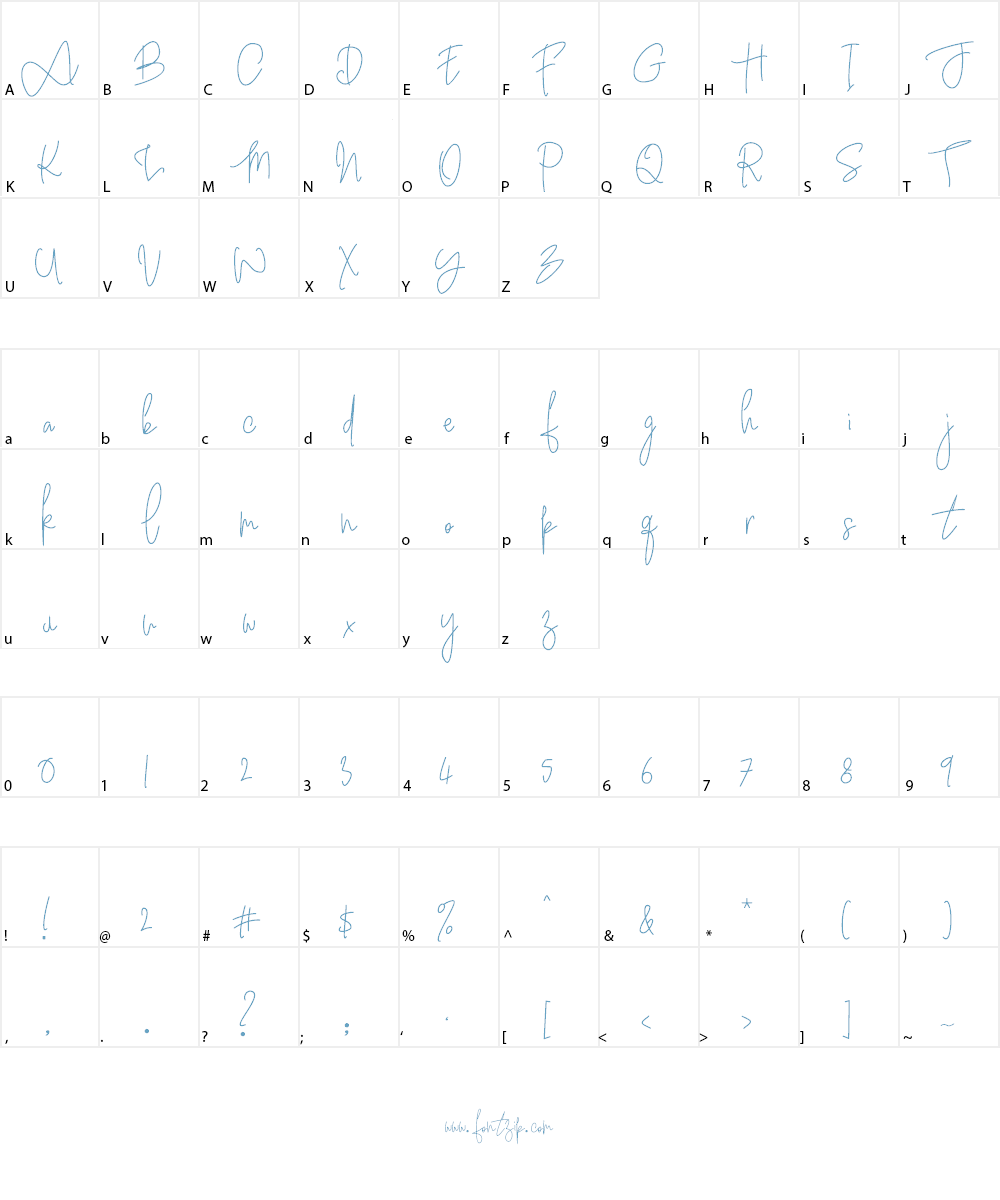
Hi Font Lover! This is a modern calligraphy font with the current handwriting style. Witherscollin is a stylish unique handwritten font and easy to remember.
It's great for unique branding, photo overlays, watermark, business card, invitations, wedding, photography, fashion, etc.